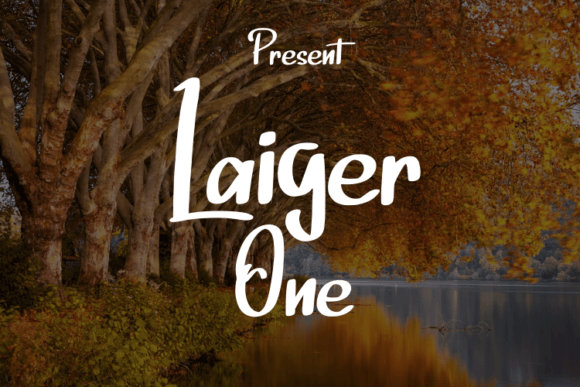
Introducing Laiger One, the font that will bring a touch of playful elegance to your digital creations. Its whimsical strokes evoke the joy of childhood, adding a dash of magic to every design.
Picture this: you're crafting a vinyl decal for your child's playroom, and Laiger One's cheerful curves dance across the surface, creating an inviting atmosphere. Or perhaps you're designing a poster for a family reunion, and its warm and approachable style encapsulates the bond that unites you.
With Laiger One, the possibilities are endless. Its versatility extends from greeting cards to social media posts, ensuring that your message will always stand out with a smile. Its readability even at large sizes makes it perfect for eye-catching headlines and cheerful body text.